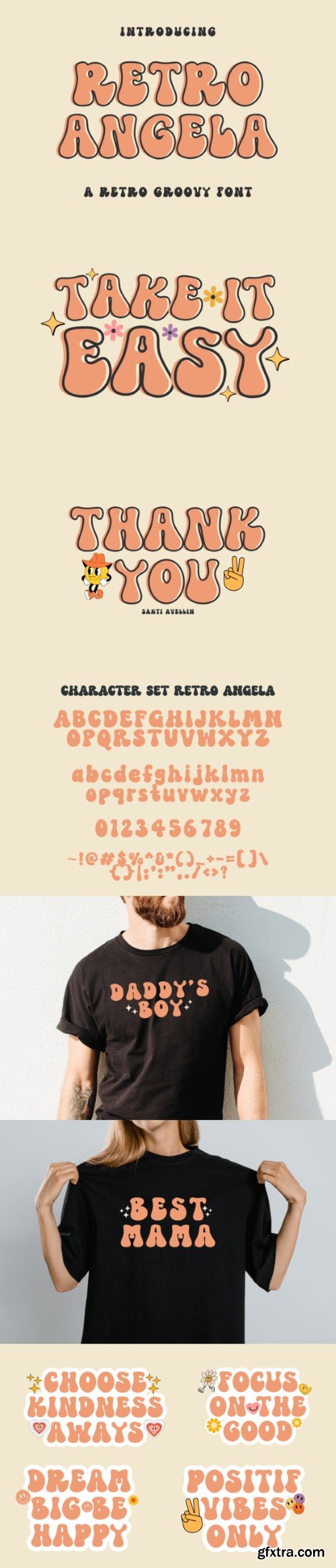
复古安吉拉字体
Retro Angela is a cute and cool groovy retro font, this font is very suitable for t shirts, mugs, quotes, greeting cards, pillows, and many others!